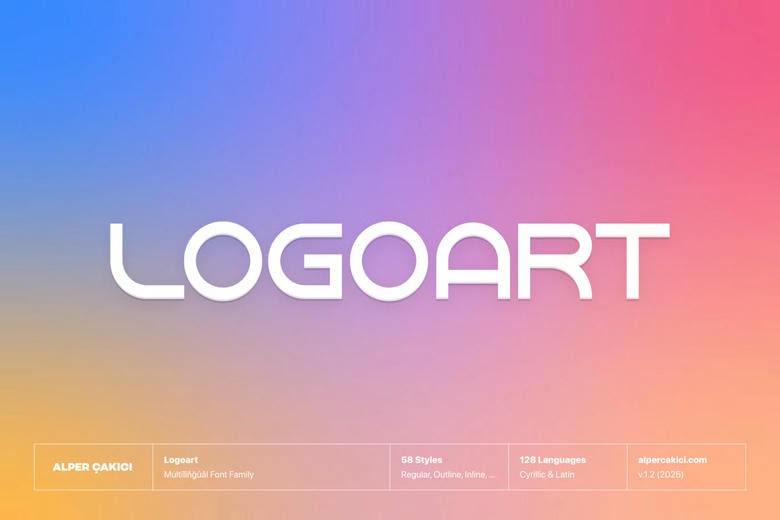
Logoart Font Family
Logoart blends futuristic geometry with refined stencil-inspired design. It offers a versatile library of 58 handcrafted styles, including Angular, Brush, Circular, Eroded, Inline, Italic, Outline, Pencil, Regular, Rimmed, Rough, and Rounded, along with their unique variations.
Logoart Sans Serif Font Family